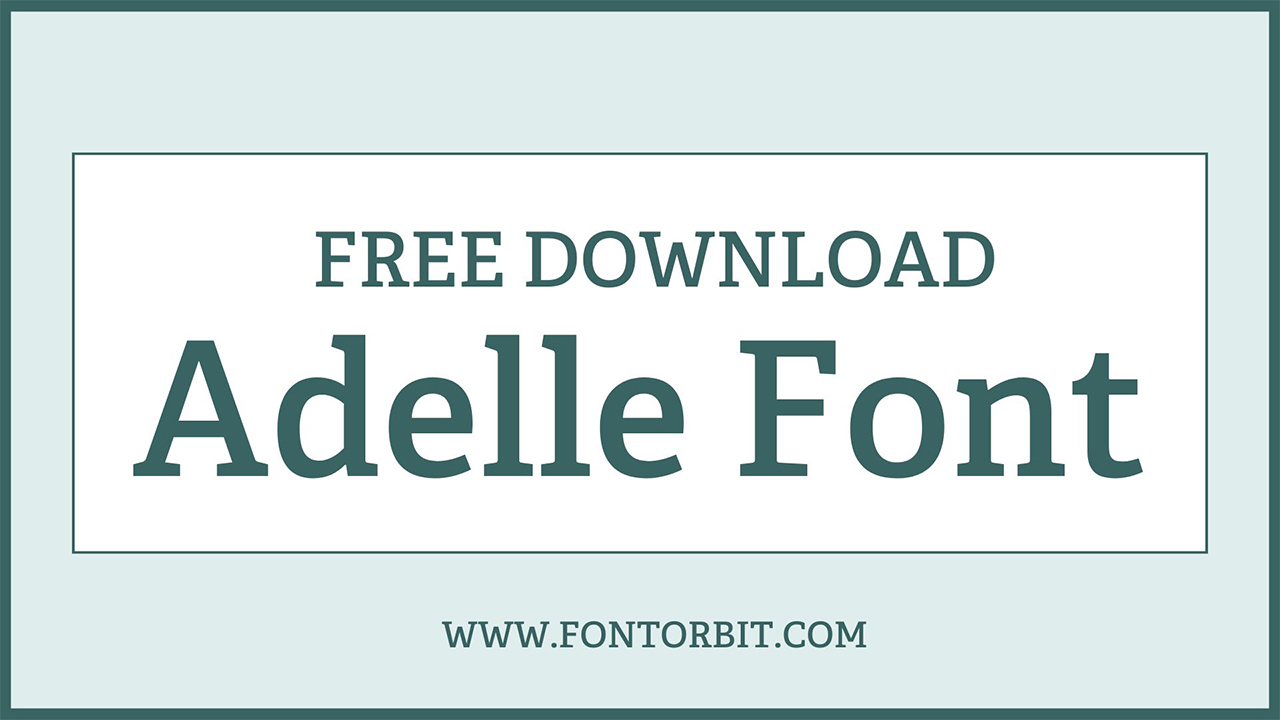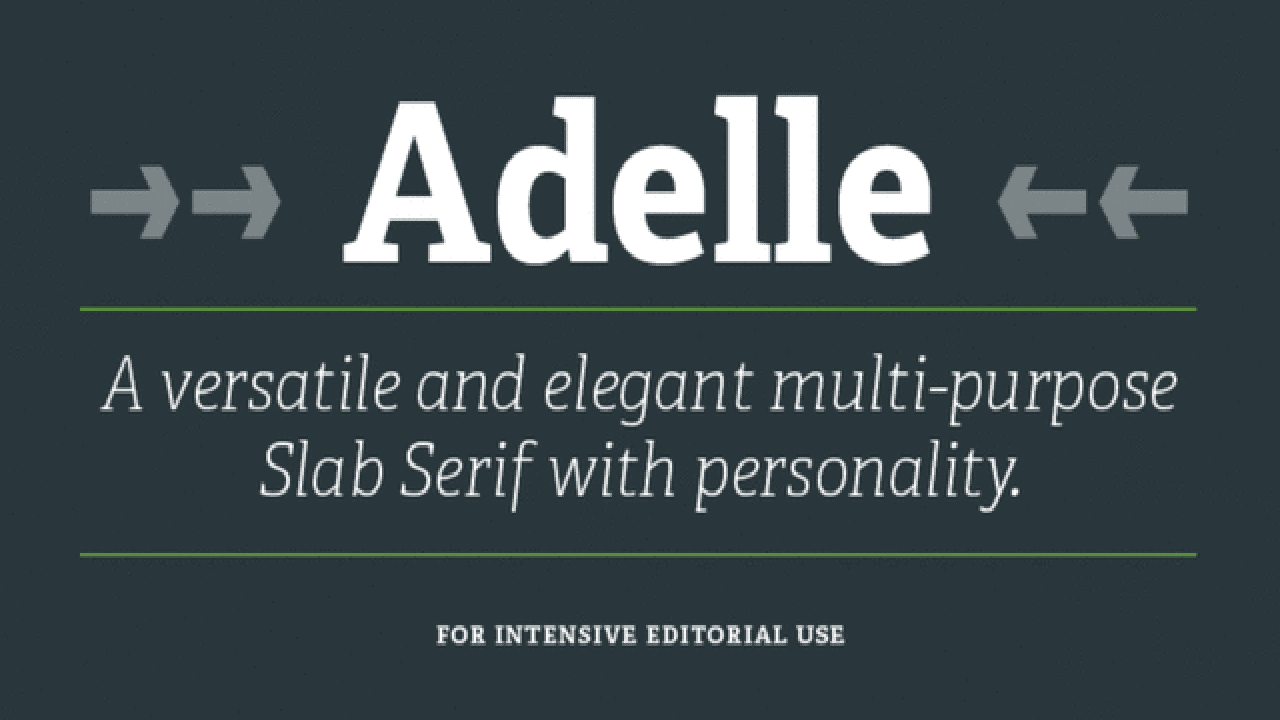
Adelle Font is a slab serif typeface created and released in 2009 by designers José Scaglione and Veronika Burian. Slab serif font means the letters have thick, block-like ends. Adelle Font is great because it looks both modern and classic, which makes it useful for many things, whether in print or on screens.
Type Of The Adelle Font (Font Family)
The Adelle Font Family offers a range of styles and weights, providing designers with flexibility for various design needs. The font family includes:
- Adelle Thin
- Adelle Thin Italic
- Adelle Light
- Adelle Light Italic
- Adelle Regular
- Adelle Regular Italic
- Adelle Semibold
- Adelle Semibold Italic
- Adelle Bold
- Adelle Bold Italic
- Adelle Extrabold
- Adelle Extrabold Italic
- Adelle Heavy
- Adelle Heavy Italic
- Adelle Condensed Thin
- Adelle Condensed Thin Italic
- Adelle Condensed Light
- Adelle Condensed Light Italic
- Adelle Condensed Regular
- Adelle Condensed Regular Italic
- Adelle Condensed Semibold
- Adelle Condensed Semibold Italic
- Adelle Condensed Bold
- Adelle Condensed Bold Italic
- Adelle Condensed Extrabold
- Adelle Condensed Extrabold Italic
- Adelle Condensed Heavy
- Adelle Condensed Heavy Italic
- Adelle Ultrathin
- Adelle Ultrathin Italic
Adelle’s blend of readability and distinctive personality makes it suitable for diverse design contexts. It excels in both digital and print media due to its excellent texture and slightly dark color. Key uses include:
- Brochures
- Flyers
- Titles
- Body Text
- Web Content
- Editorial Design
- User Interfaces
Adelle Font Found In Use
Adelle Font is used in a variety of media for its readability and distinctive design. Its design versatility makes Adelle a go-to choice for both creative and professional projects.
- Editorial layouts
- Magazine spreads
- Website text
- Digital interfaces
- Print materials
- Marketing materials
Final Words
Adelle Font stands out for its unique combination of modern slab serif design and classic appeal. Its adaptability and clarity in various sizes and formats make it a valuable asset for any design project, whether for detailed text or striking headlines.
1.What Are The Different Styles Available In The Adelle Font Family?
The Adelle font family includes Regular, Light, Medium, Bold, Black, Italic, Light Italic, Medium Italic, Bold Italic, and Black Italic styles.
2.What Are The Design Principles That Influenced The Creation Of Adelle Font?
Adelle combines the robustness of slab serifs with a modern, unobtrusive design, emphasizing readability and versatility in various applications.
3.What Are The Best Pairings For Adelle Font In Design Projects?
Adelle pairs well with clean sans-serifs like Helvetica for a modern look or with classic serifs such as Georgia for a traditional feel.
4.What Are The Reviews Of Adelle Font From Designers And Typographers?
Designers appreciate Adelle for its readability and adaptability, while typographers value its balanced design and versatility in both print and digital contexts.